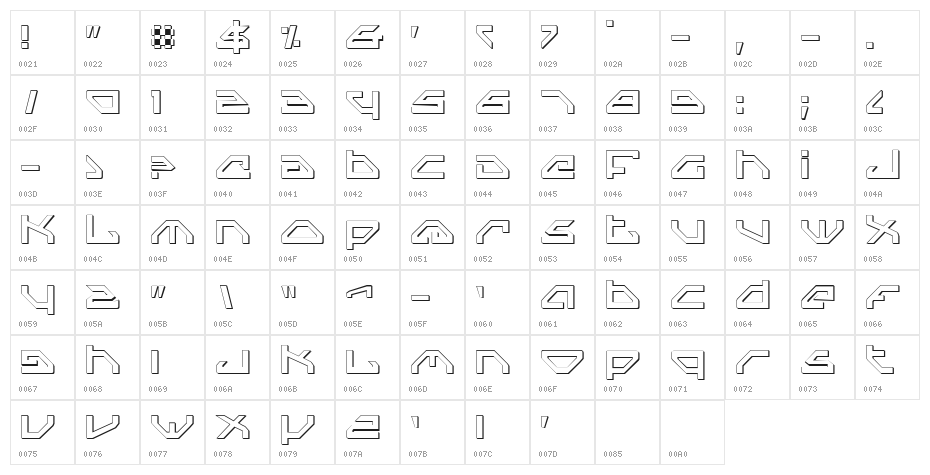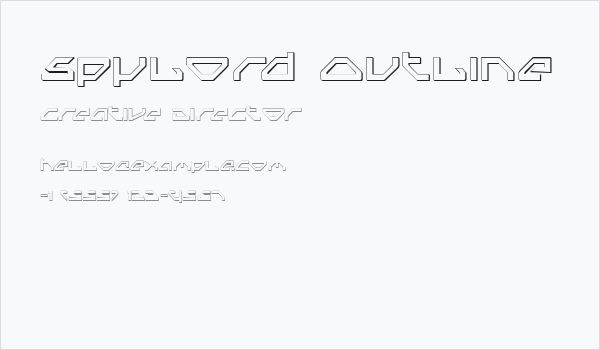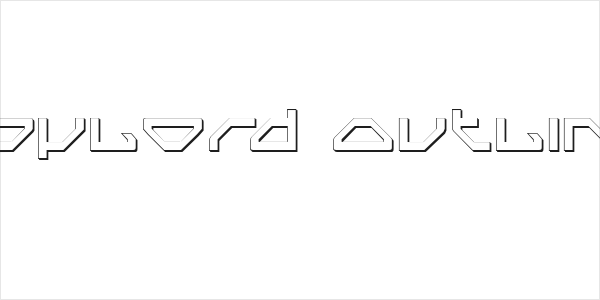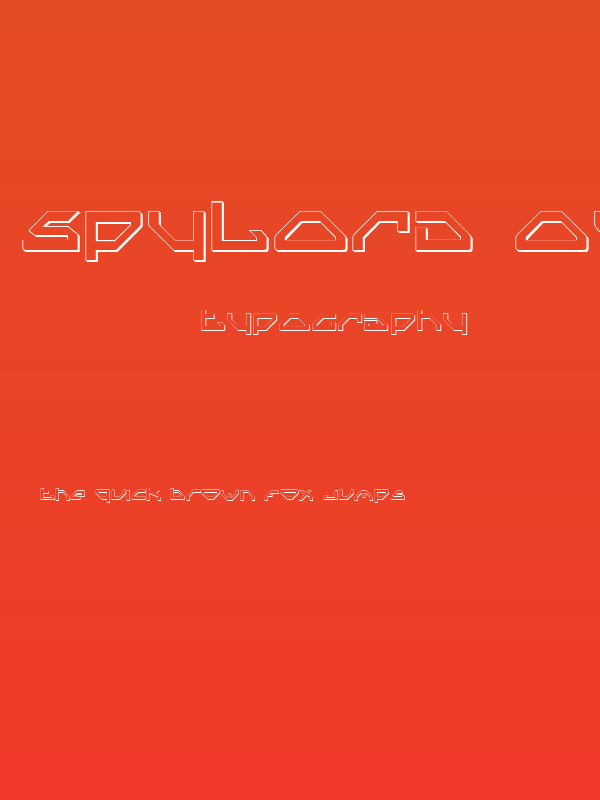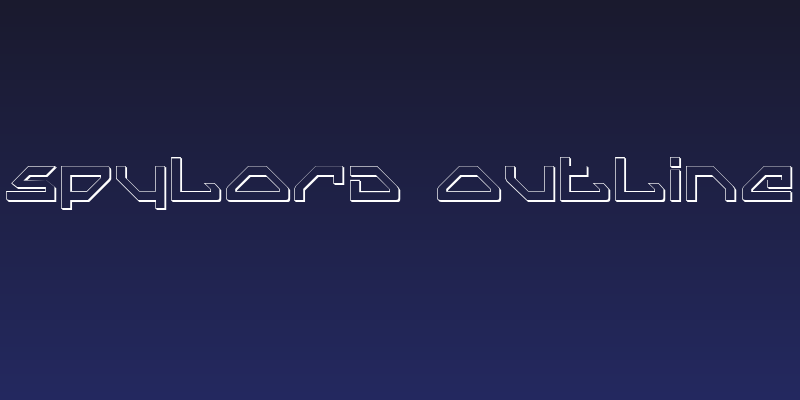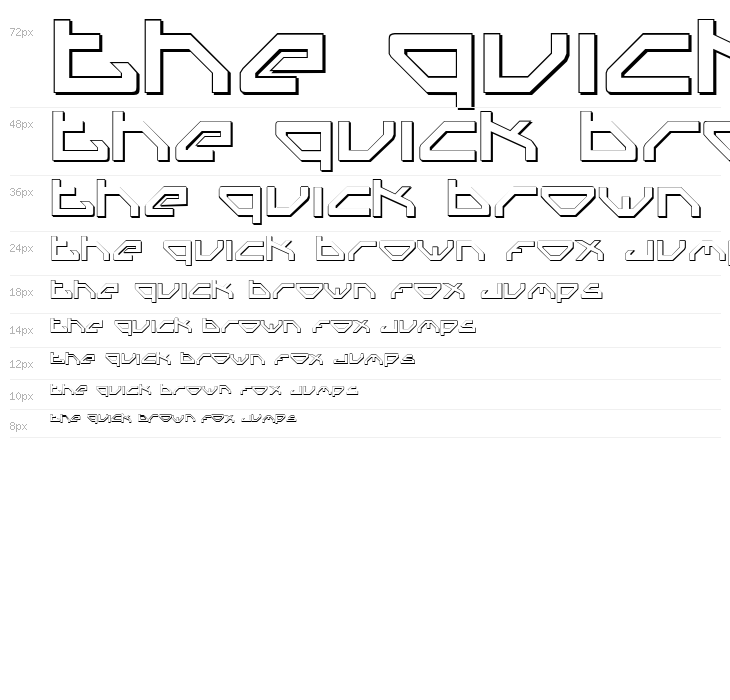
Spylord Outline Font
Spylord Outline Description
This font features a futuristic and geometric design with an outline style. Each character is crafted with sharp angles and straight lines, giving it a distinct, modern appearance. The uppercase and lowercase letters maintain a consistent height, while the numbers and special characters follow the same angular theme. The outline effect creates a hollow look, adding a sense of depth and dimension. This font is ideal for projects that require a bold and eye-catching typeface, such as technology-themed designs or sci-fi branding.